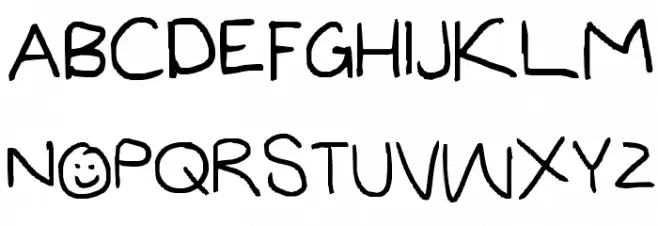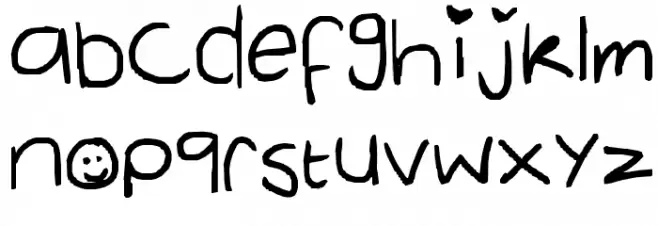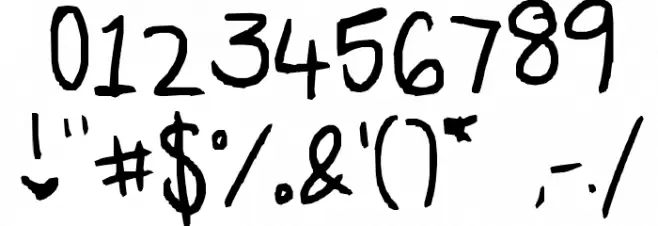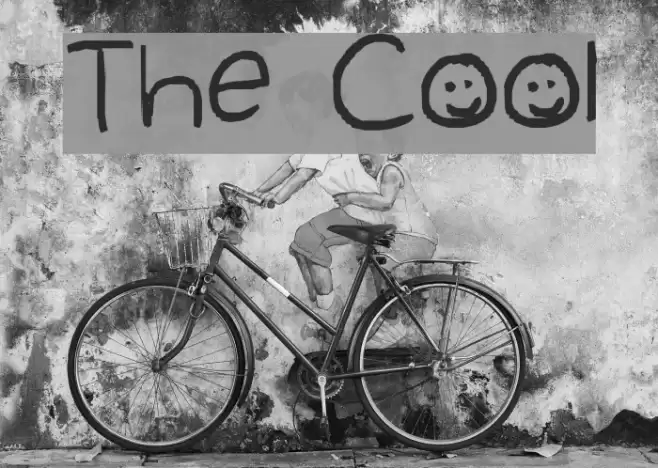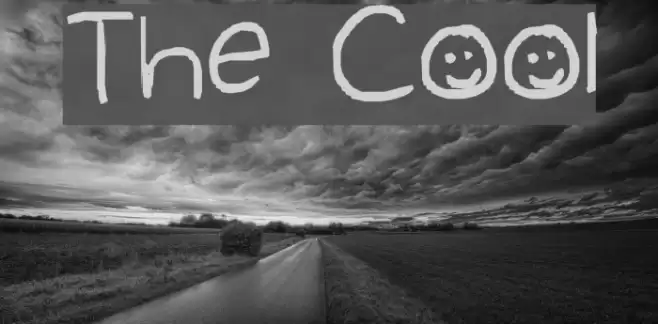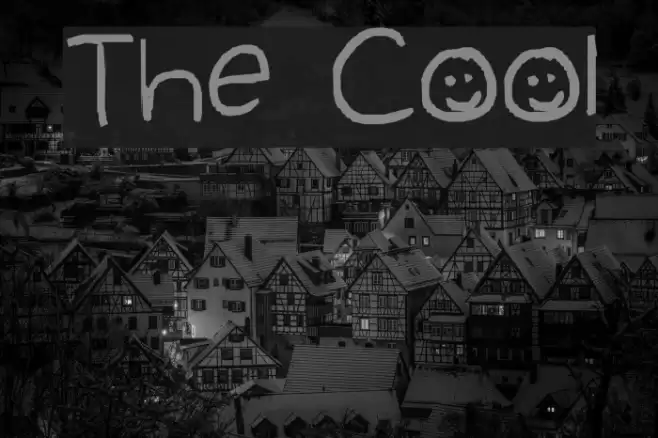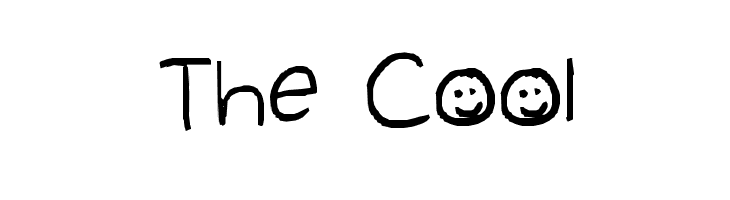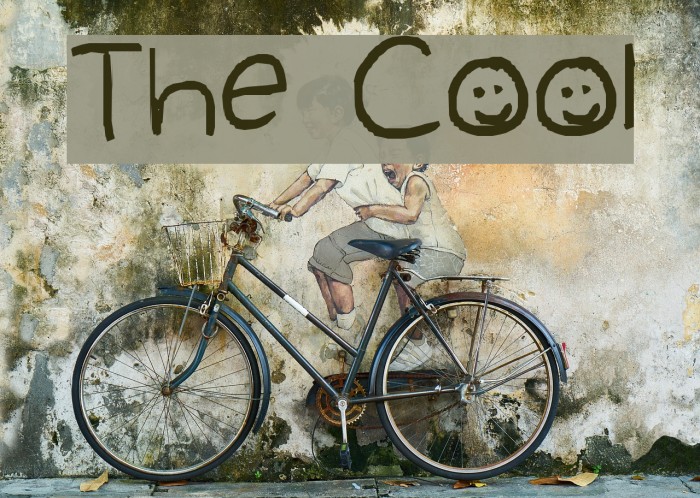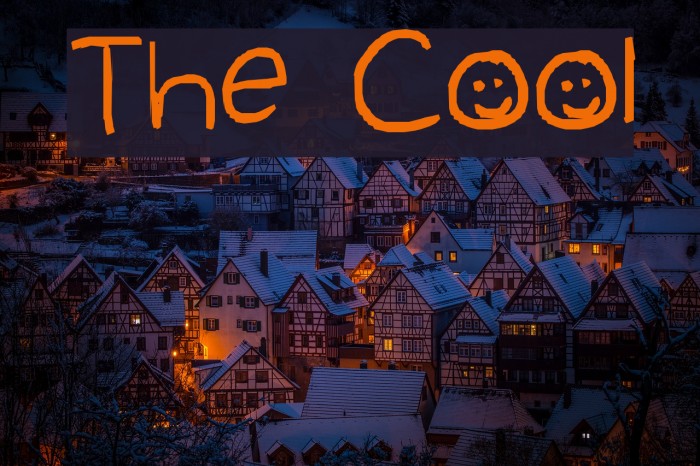
The Cool
This playful and whimsical font features a handwritten style with a casual, informal appearance. The letters are uneven and slightly irregular, giving it a charming, childlike quality. The font includes unique elements such as smiley faces within the letter 'O' and small hearts above the letter 'i', adding to its quirky and fun character. The strokes are consistent in width, contributing to a cohesive look despite the playful design. This font is perfect for projects that require a personal touch or a sense of fun and creativity.
A playful, handwritten font with quirky, whimsical elements.
- Proposed Projects: Ideal for children's books, greeting cards, playful branding, and creative posters.
- Overall Style: Decorative
- Use Case: Headlines, Logos, Informal Text